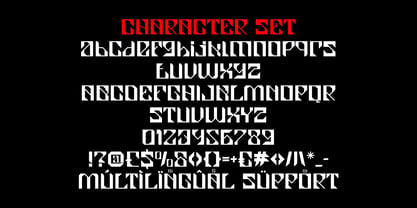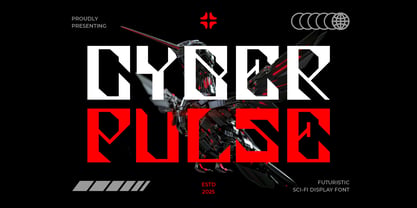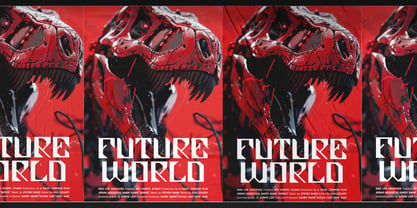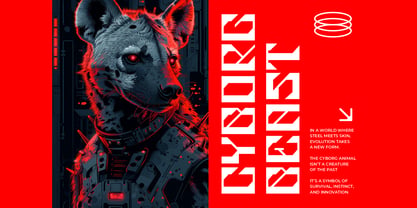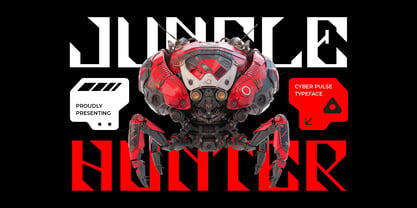
Cyber Pulse
by Putracetol
The Cyber Pulse Font Family was designed by Putra Novembria Candra Kusuma and published by Putracetol. Cyber Pulse contains 1 styles. More about this family
Cyber Pulse Futuristic Display Font is built with strong geometric construction and sharp angular cuts. Each letterform shows a tall structure with a wide stance, creating a powerful and confident presence. The strokes are consistently thick, with precise corners and controlled negative spaces that enhance clarity at large sizes. Subtle breaks and modular segments add a technical rhythm without harming legibility. The font feels solid and engineered, with no unnecessary ornament, making every character look intentional and clean. Its proportions support clear spacing, while the rigid forms keep layouts balanced and visually stable. Cyber Pulse Futuristic Display Font works especially well when designers need strong visual authority combined with a modern digital tone. This typeface carries a futuristic, cyber, and sci-fi style with a bold and aggressive edge. The overall mood feels modern, high-tech, and industrial, suitable for forward-looking concepts. It fits perfectly for logos, branding systems, advertising headlines, posters, packaging, and editorial titles. The font also performs well for film titles, gaming visuals, technology products, book covers, magazine headers, stickers, and digital campaigns. Its structured appearance helps brands communicate innovation, strength, and precision. Cyber Pulse Futuristic Display Font supports designers who want a clear futuristic identity that feels confident and professional. The font adapts well to both minimal layouts and complex compositions, making it reliable for business and creative projects alike. Its bold character shapes ensure messages remain impactful and readable across many design contexts.